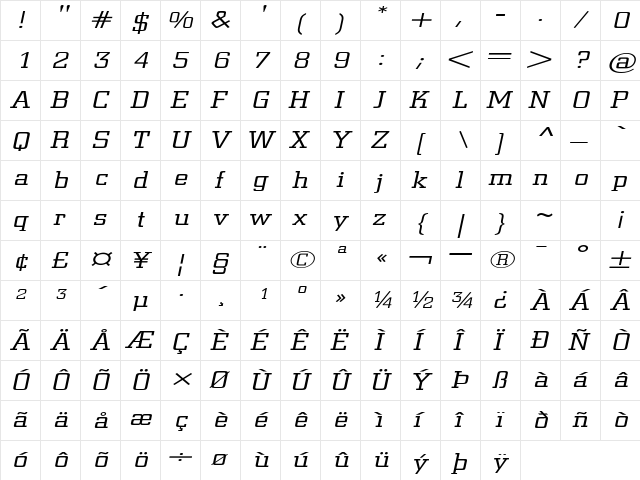
CenterCityExtended Oblique
Design Context for CenterCityExtended Typeface
CenterCityExtended offers clean, dependable letterforms without strong stylistic allegiance, making it a practical choice for designers who need flexibility. Its italic angle brings a sense of urgency and motion to the letterforms.
Pro Tip: Use CenterCityExtended for emphasis, pull quotes, and subheadings where its slanted energy can add rhythm to the layout.